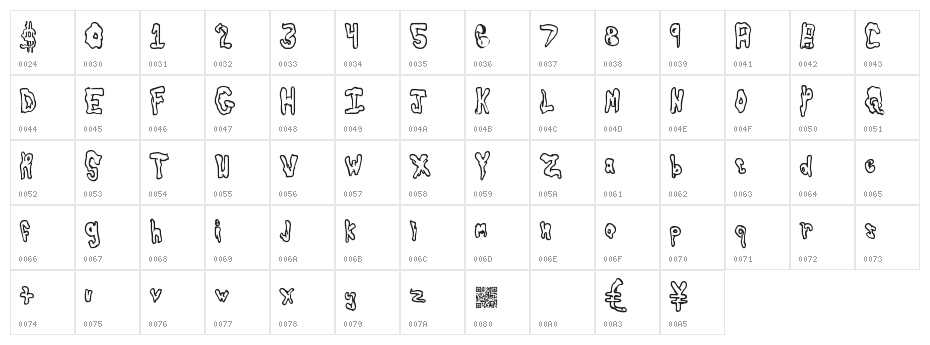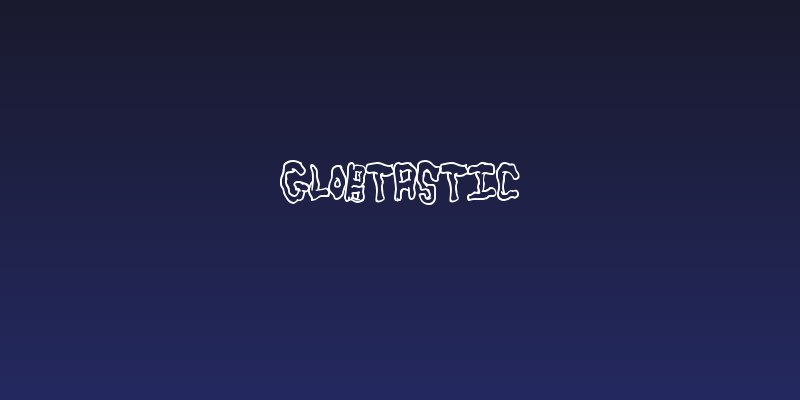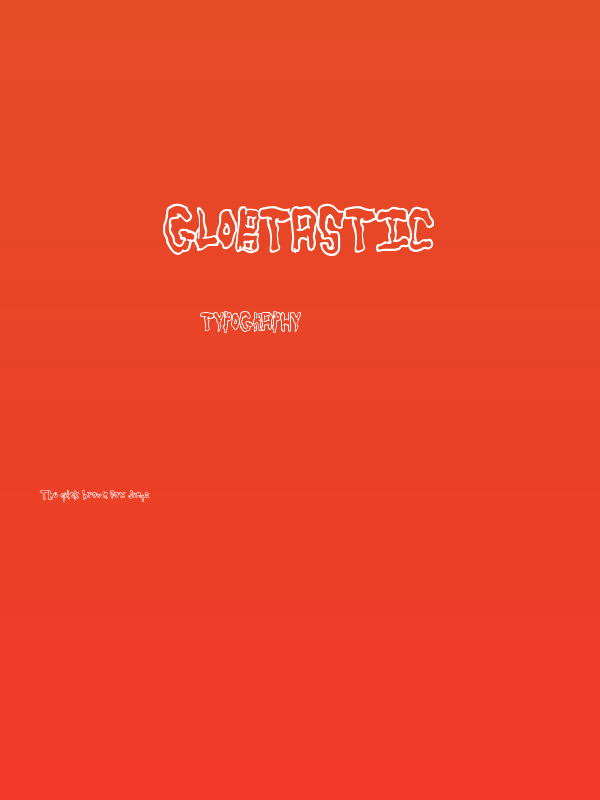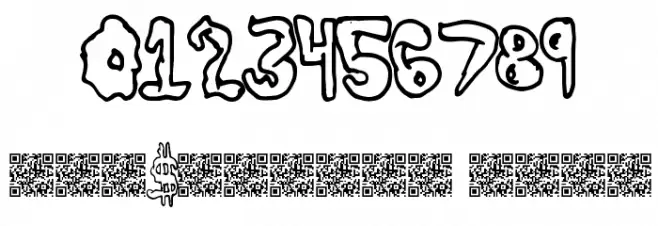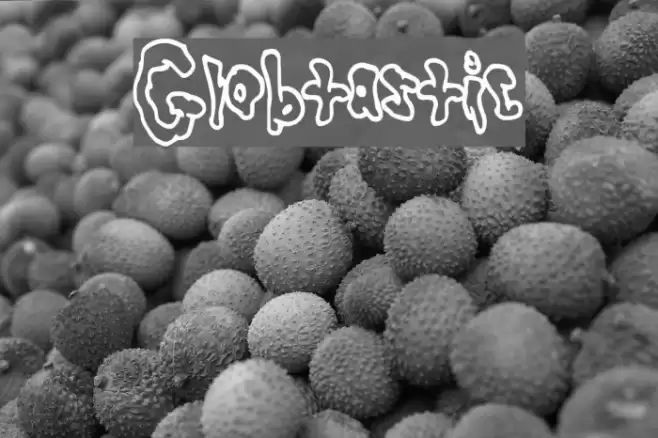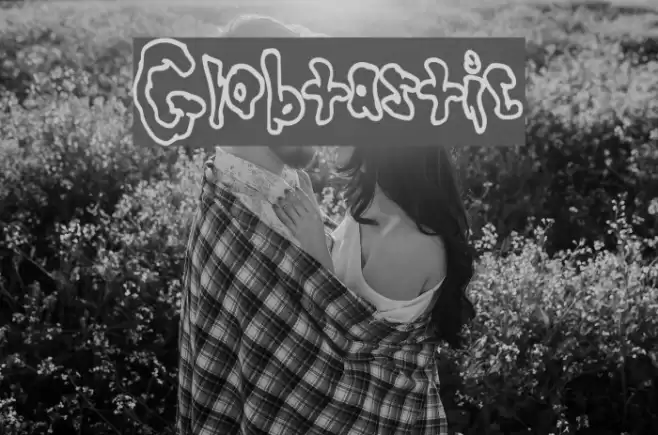
Globtastic Font
Globtastic Description
This font features a playful and organic design, with each character appearing as if it is melting or dripping. The letters have an irregular, hand-drawn quality, giving them a unique and whimsical appearance. The strokes are uneven, with varying thicknesses that add to the font's dynamic and fluid style. This font is highly decorative and stands out due to its unconventional shapes and artistic flair. It captures attention with its bold and creative design, making it suitable for projects that require a fun and eye-catching typeface.